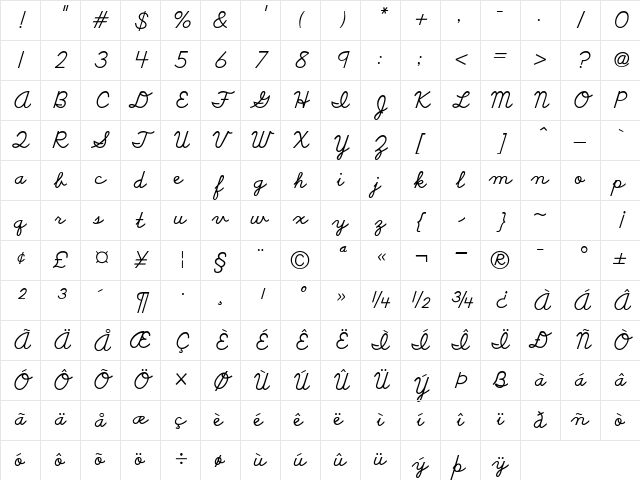
DnealianCursive Regular Free Font
DnealianCursive Regular
Design Context for DnealianCursive
DnealianCursive flows with the natural rhythm of handwritten lettering, making it ideal for designs that call for warmth and personal expression.
Font Pairing: Combine DnealianCursive with a simple geometric sans for maximum contrast - the tension between flowing curves and clean structure is a classic typographic pairing.
Pro Tip: Use DnealianCursive for short runs of text - names, titles, or taglines. Extended body copy in script faces tires the eye quickly.